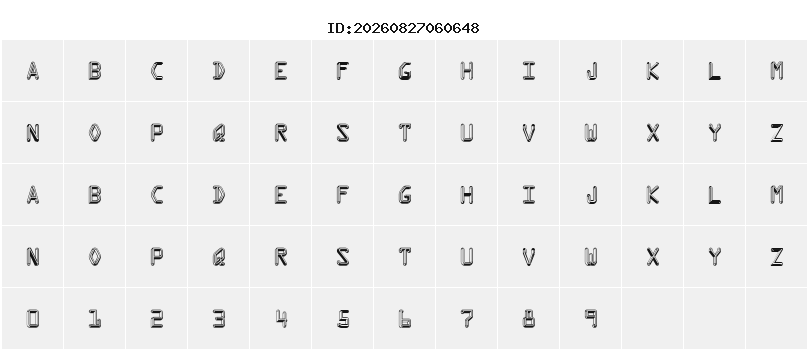
597-CAI978 Preview
• Font Name: 597-CAI978
• Version: Version 1.00 June 4, 1930, initial release
About 597-CAI978.ttf
597-CAI978.ttf is a modern, elegant sans-serif font designed for ultimate readability and visual harmony. Perfect for branding, headlines, web design, and print materials.